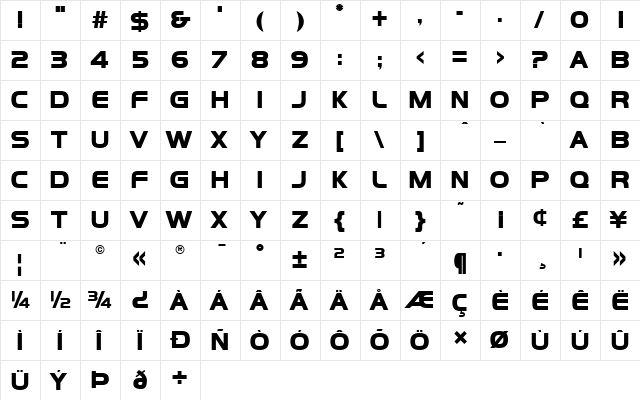
PepsiFont Regular Font Preview
PepsiFont Regular
| Foundry | Richard Beatty Designs for BBDO |
Design Context for PepsiFont Typeface
PepsiFont offers clean, dependable letterforms without strong stylistic allegiance, making it a practical choice for designers who need flexibility.